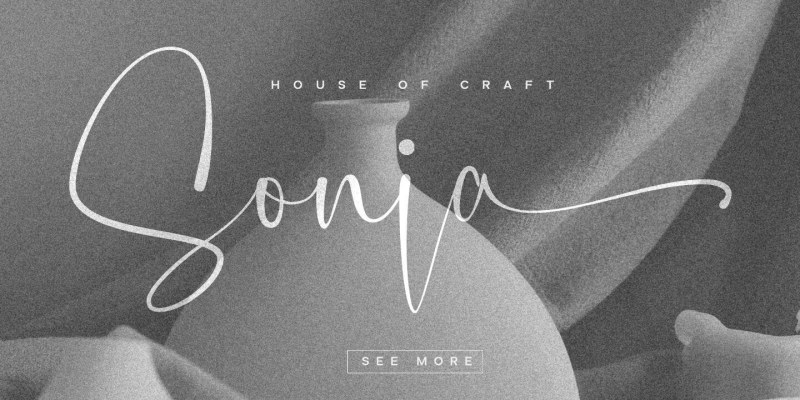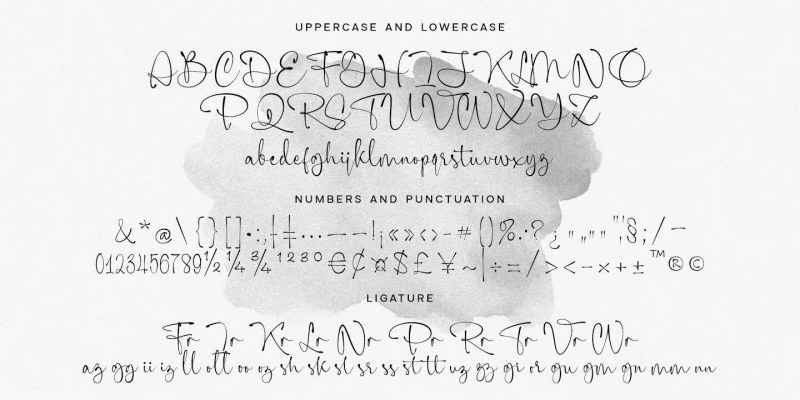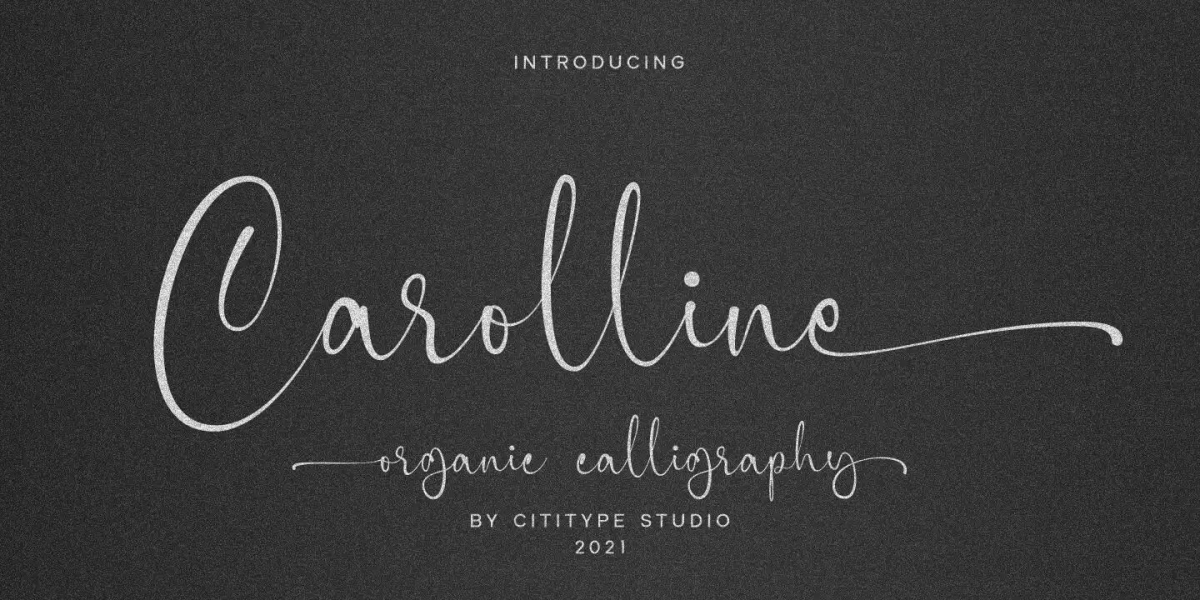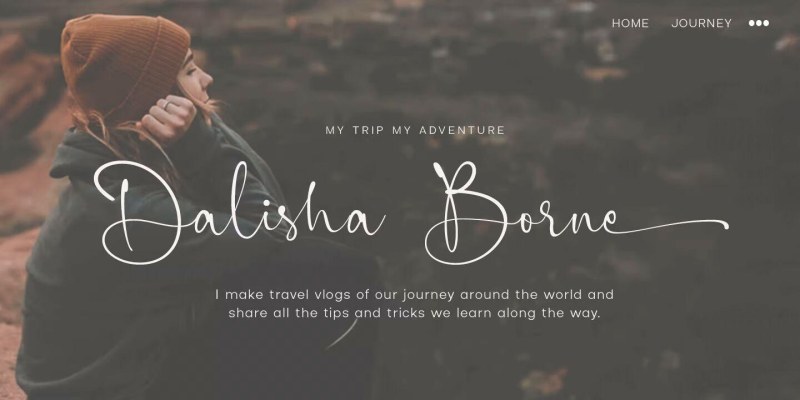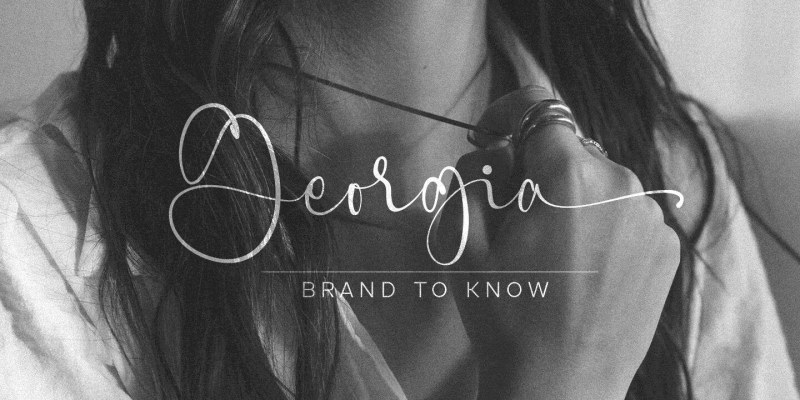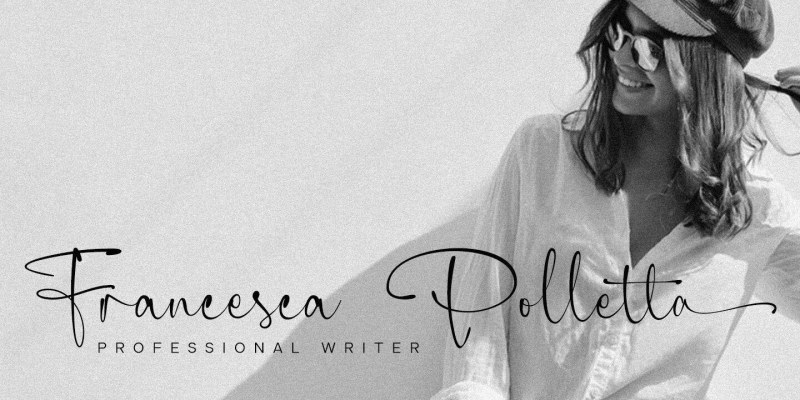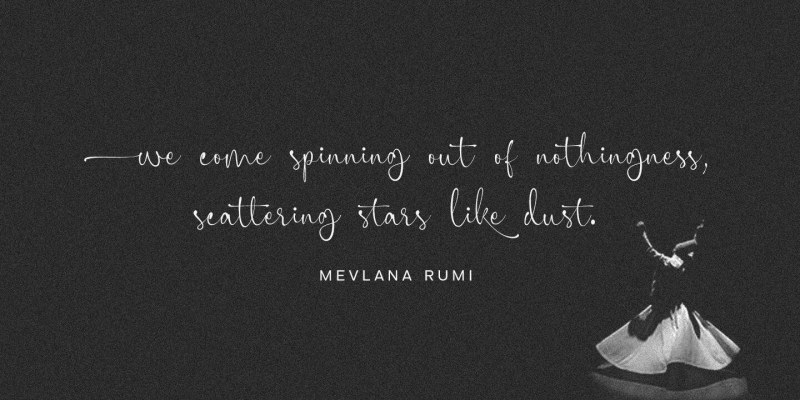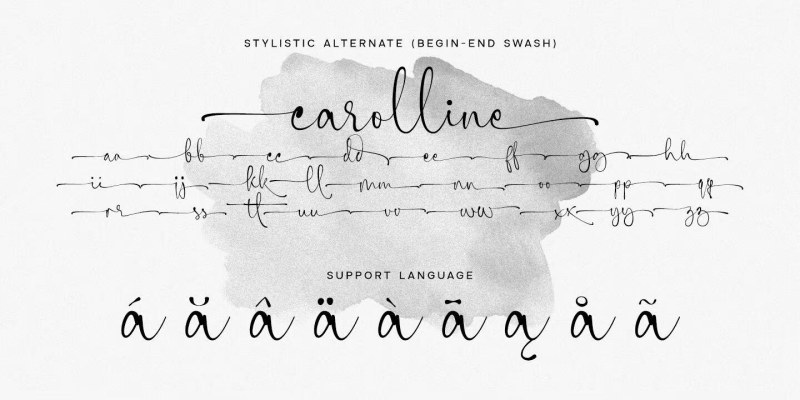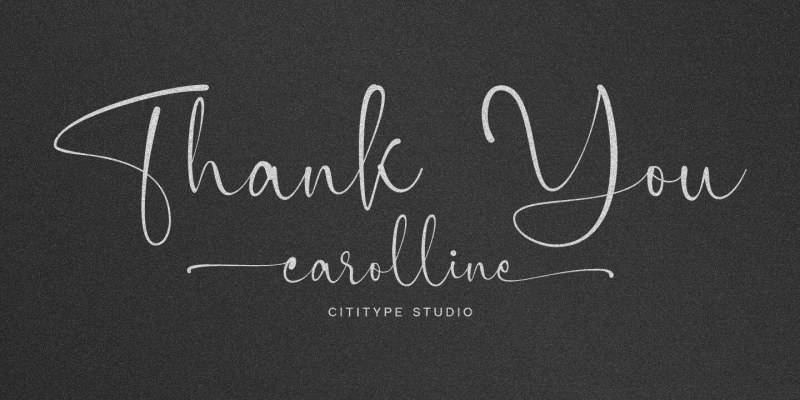
Carolline Font
Carolline is a romantic and stylish handwritten font. It features a varying baseline, smooth lines, gorgeous glyphs and stunning alternates. Carolline looks beautiful on…
Carolline is a romantic and stylish handwritten font. It features a varying baseline, smooth lines, gorgeous glyphs and stunning alternates. Carolline looks beautiful on a variety of designs requiring a personalized style, such as wedding invitations, thank you cards, weddings, greeting cards, logos and so on.
Where Carolline Font works best
Carolline Font brings a personal, handwritten warmth to invitations, menus and place cards.
Craft brands — coffee, cosmetics, bakery — use scripts like Carolline Font for signature-style logos and labels.
Pair Carolline Font with a plain sans for quotes, stories and Pinterest pins that feel handmade.
What is Carolline Font good for?
Carolline Font is a Script And Handwritten typeface tagged Branding, Download, Free, Handwritten. It works well for headlines, logos, posters, social media graphics and branding projects that need a distinctive script and handwritten look.